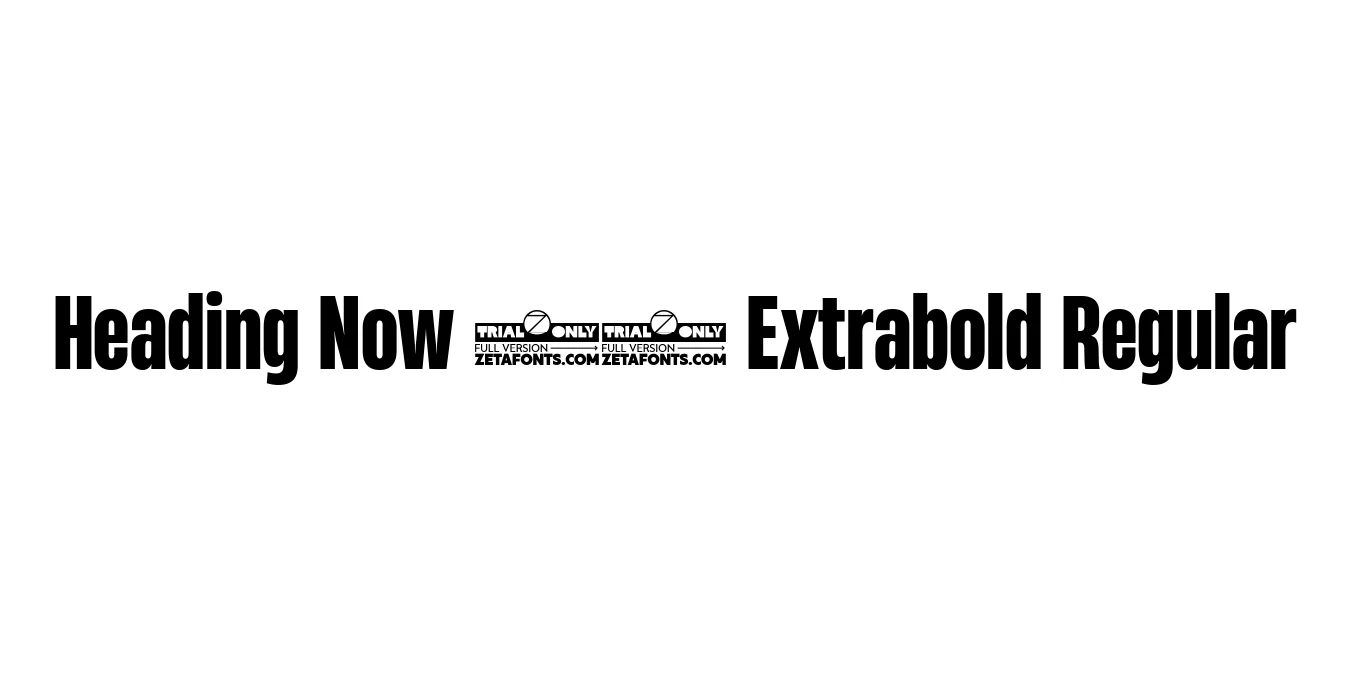
Heading Now 47 Extrabold Regular
Designed by Francesco Canovaro
Heading Now 47 Extrabold Regular is a powerhouse typeface designed by Francesco Canovaro for the Italian foundry Zetafonts. As an evolution of the original Heading font family, this specific variant (width 47) is part of a massive superfamily designed to solve every possible layout challenge. It balances a modern grotesque aesthetic with a compressed structure, providing designers with an authoritative tool for high-density information environments and striking visual hierarchies.
This particular weight, Extrabold, is engineered for maximum visibility and impact. Its clean lines and geometric precision ensure that it remains legible even in tight spaces, making it a favorite for contemporary editorial design and high-end advertising. Whether used for digital interfaces or large-scale print, Heading Now 47 Extrabold Regular offers a sophisticated yet industrial feel that commands attention while maintaining a professional corporate tone.
Heading Now 47 Extrabold Regular Best Uses
Ideal for high-impact posters and promotional campaign materials.
Perfect for bold magazine headlines and newspaper section titles.
Used for creating strong, recognizable visual identities and logos.
Excellent for hero banners and attention-grabbing call-to-action elements.